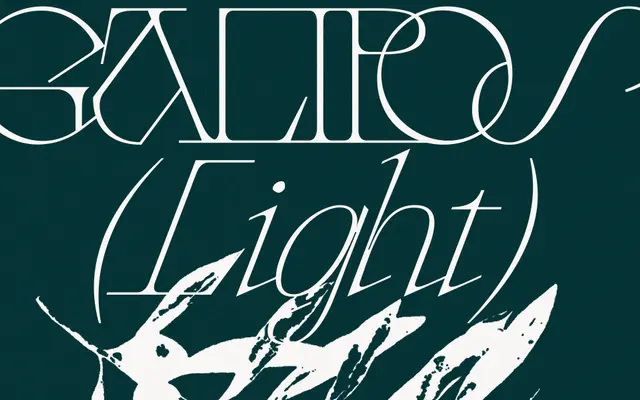
Galipos
A sharp, culturally rooted display typeface by Guille Sesenta, drawing on Andalusian heritage with contrasting edges and delicate curves suited to editorial and poster work.
Designed by Guille Sesenta, Galipos pairs angular edges with delicate curves to create a visual tension that the designer frames around Andalusian culture and its particular mix of resilience and refinement. The family is currently offered in Light and Light Italic, with 596 glyphs covering Latin Extended and Cyrillic, stylistic alternates and ligatures. Its character suits headline-led editorial layouts and identity work where a strong typographic personality is needed.
Galipos is classified as a display typeface with sharp, intricate letterforms and contrasting edges and curves; it sits outside conventional serif or sans-serif categories, functioning as an experimental display face.